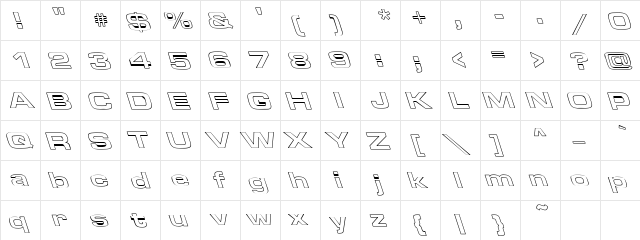
Aero Extended Hollow Lefty Regular
Design Context for Aero Extended Hollow Lefty Typeface
Aero Extended Hollow Lefty offers clean, dependable letterforms without strong stylistic allegiance, making it a practical choice for designers who need flexibility.